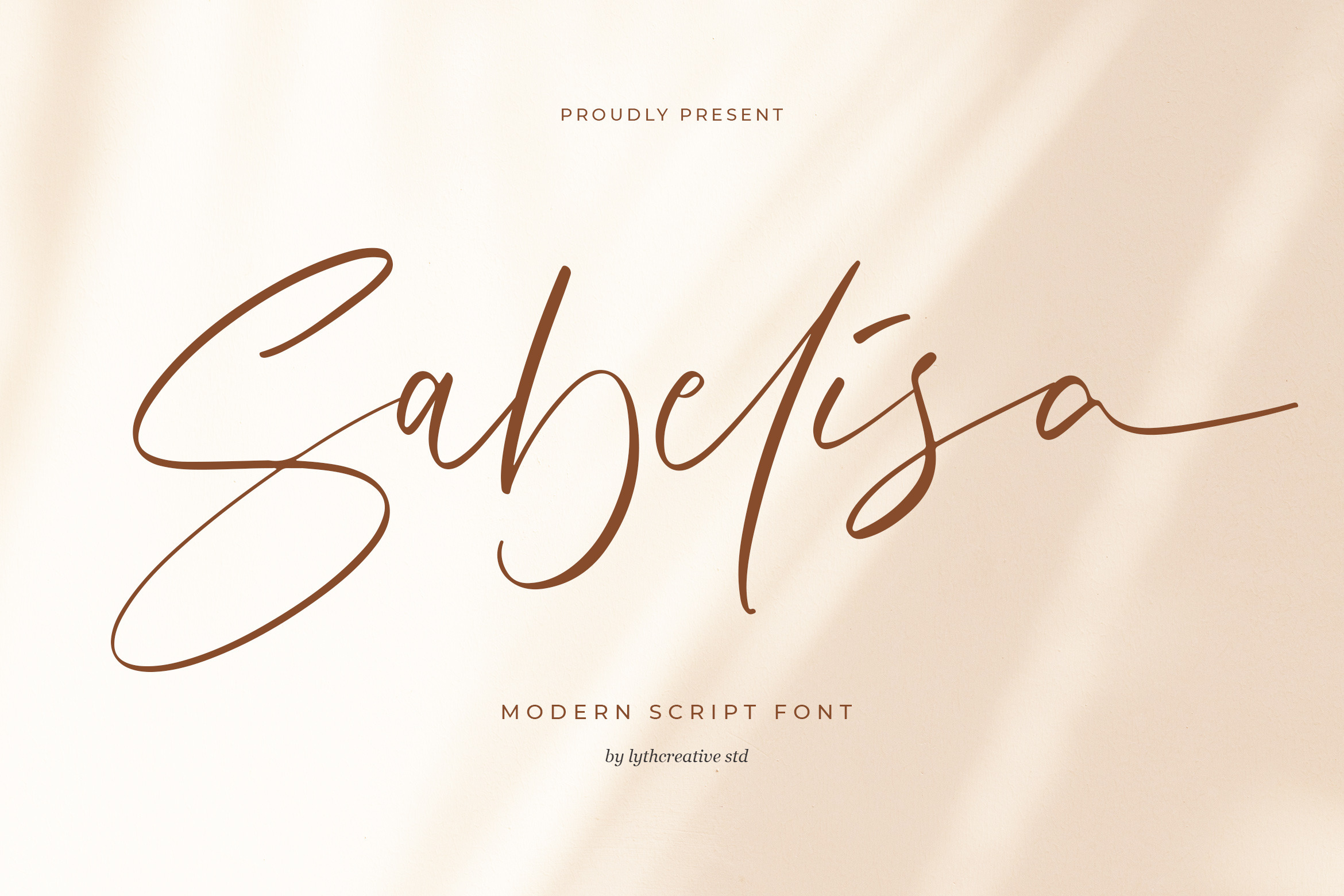
Sabelisa Script Font
Sabelisa is an exciting beautiful script font. Fall in love with its elegantly playful nature!
Sabelisa is perfect for branding projects, logo, wedding designs, social media posts, advertisements, product packaging, product designs, label, photography, watermark, invitation, stationery and any projects.